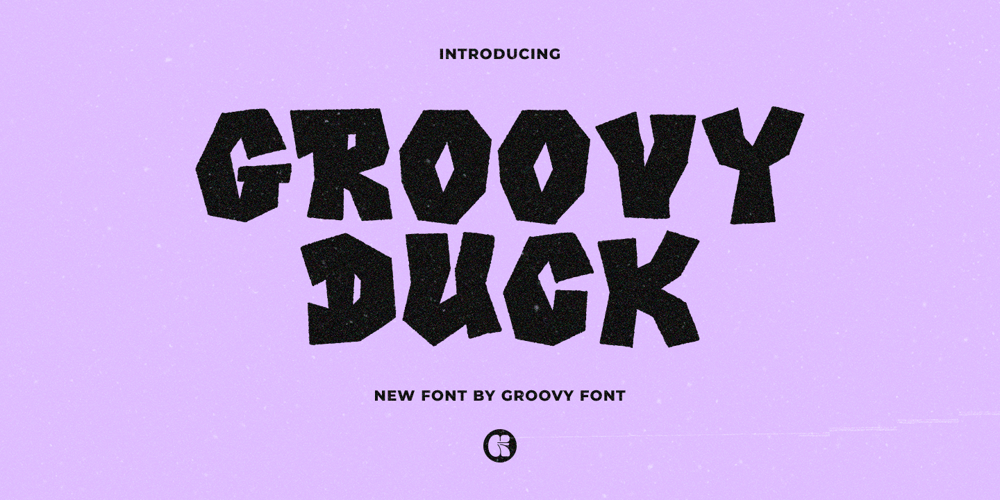
Groovy Duck Font Family was designed by Ahmad Ginanjar Riyadi and published by Groovy Font. Groovy Duck contains 1 styles and family package options. Groovy Duck font is a carefully crafted display font that achieves a thick, substantial appearance reminiscent of stone, while maintaining a sense of fluidity and flexibility. Its design strikes a balance between solidity and approachability, offering a unique visual appeal that is both sturdy and engaging. This font is ideal for creating impactful headlines, titles, and branding materials where a bold and substantial look is desired, without sacrificing character and warmth. Groovy Duck adds a touch of strength and reliability to design projects while retaining a welcoming and versatile aesthetic.What’s you’ll get : – Uppercase, Lowercase, Numeral, Punctuation & Multilingual.For any questions please contact me 🙂Thank You !